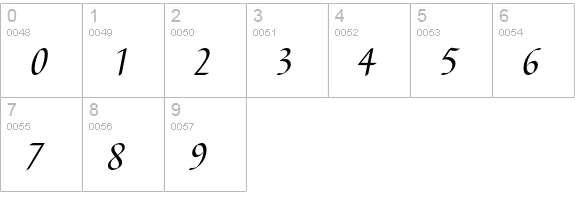
BarbedorEF-RegularItalic is a stylish and elegant font that exudes sophistication and charm. Its italicized design adds a touch of flair and creativity to any project, making it perfect for conveying a sense of modernity and professionalism. The slanted strokes and unique letterforms of BarbedorEF-RegularItalic create a visually interesting and dynamic appearance that is sure to catch the eye. Best of all, BarbedorEF-RegularItalic is available for free download at FontsMarket.com. This means you can easily access this high-quality font without any cost, making it a great choice for designers, artists, and creatives looking to add a touch of class to their work. Whether you're designing a logo, creating a poster, or working on a website, BarbedorEF-RegularItalic is a versatile font that will elevate your project to the next level. Download it now and start using this beautiful font in your designs!